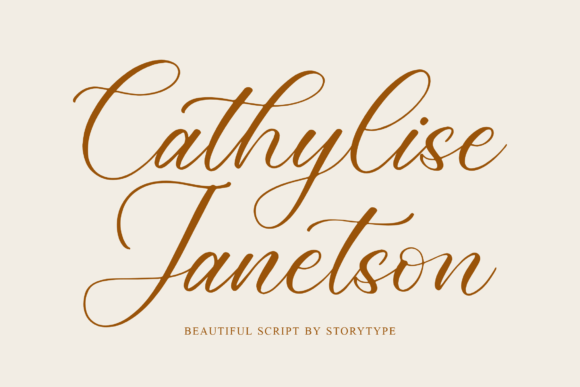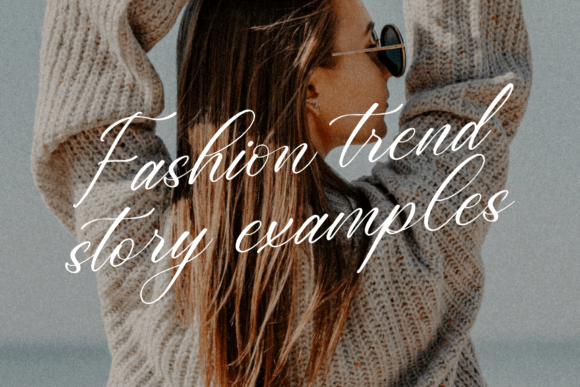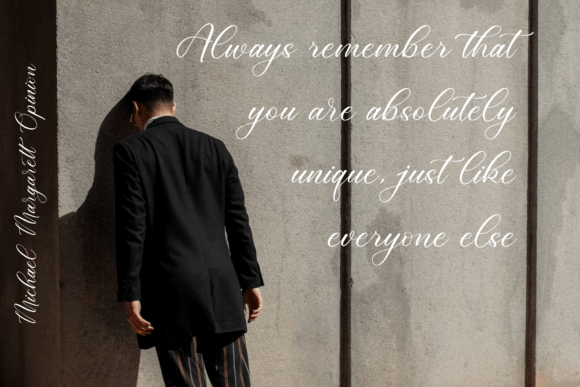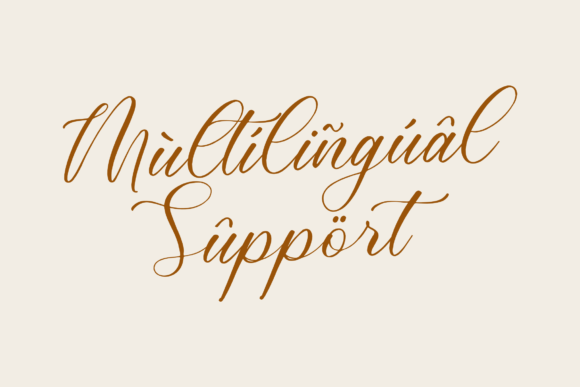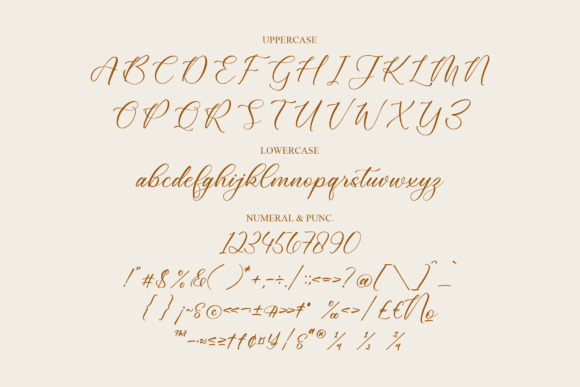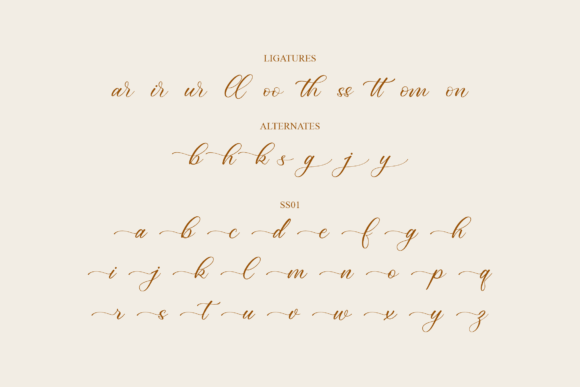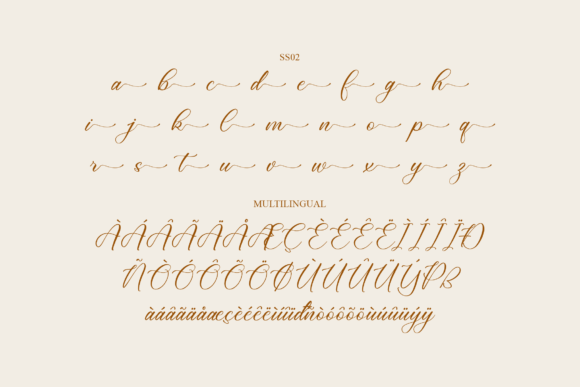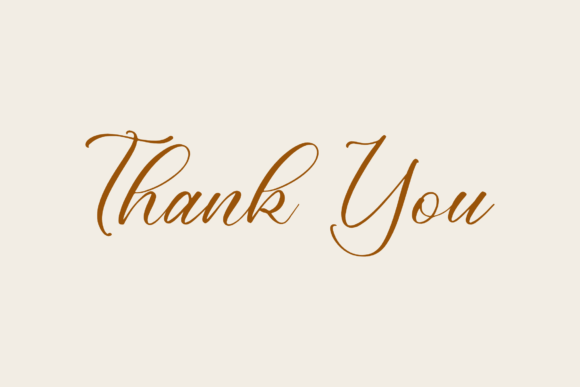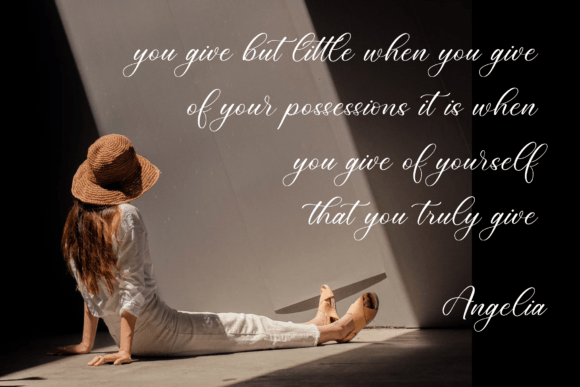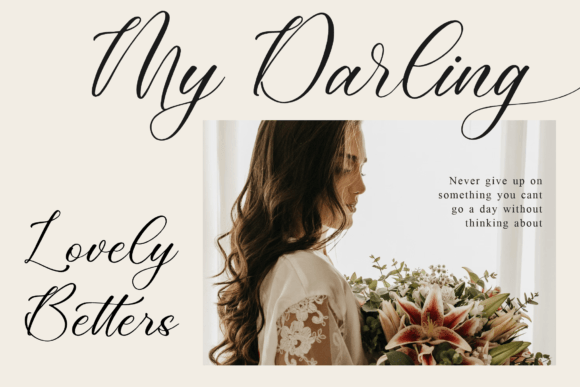
Cathylise Janetson Font
Cathylise Janetson: A Dazzling Script Font for Elegant Designs
Introducing Cathylise Janetson, an exquisitely crafted script font that brings sophistication and elegance to any creative project. This stunning typeface is meticulously designed to elevate your designs, regardless of theme or topic, making it a versatile asset for designers and creative professionals.
Key Features of Cathylise Janetson Font
• Elegant Script Style: Adds a touch of refined beauty to text
• Versatile Application: Ideal for weddings, branding, and social media content
• Precision Crafted: Meticulously designed for optimal readability and aesthetics
• Timeless Appeal: Suitable for both modern and classic design projects
• Extensive Character Set: Includes a wide range of glyphs and ligatures
Perfect for Sophisticated Projects
Cathylise Janetson excels in creating:
• Enchanting wedding invitations and stationery
• Sophisticated branding materials
• Captivating social media graphics
• Refined website designs
• Elegant packaging and labels
• High-end marketing materials
Why Choose Cathylise Janetson?
This font’s exquisite design ensures your content stands out and leaves a lasting impression. Its versatility makes it an invaluable asset for designers and creative individuals alike, capable of enhancing a wide range of projects with its timeless charm. The attention to detail in each character allows for seamless flow in both short phrases and longer text blocks.
Cathylise Janetson is more than just a font; it’s a design powerhouse that brings elegance and sophistication to every project. Whether you’re working on wedding stationery, brand identities, or digital content, this font will help you create visually stunning and professionally polished designs. The font’s flowing curves and graceful ligatures add a personal, handcrafted feel to your text, making it perfect for projects that require a human touch. Its legibility at various sizes ensures that your message is not only beautiful but also clear and easy to read. Add Cathylise Janetson to your font collection today and experience the transformative power of its timeless beauty on your creative endeavors. Let this exquisite script font be the secret ingredient that takes your designs from good to unforgettably elegant, setting your work apart in a crowded design landscape.